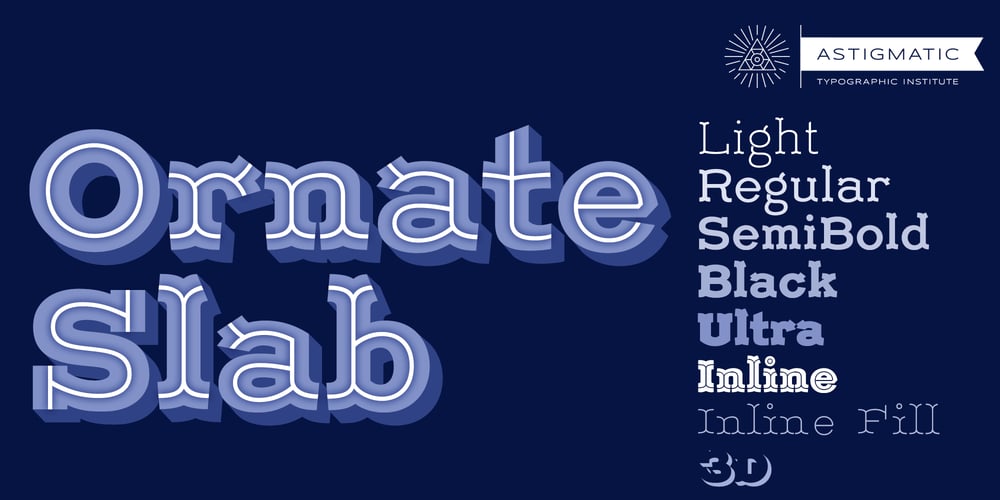
Ornate Slab AOE Font Family was designed by Brian J. Bonislawsky and published by Astigmatic. Ornate Slab AOE contains 8 styles and family package options. The Ornate Slab Family originated in an old penmanship book as a single style/weight and has been digitally revived with a range of weights and effect styles to give your design loads of play. Great for nautical, cultural, or historical appeal design and beyond. Complete with ordinals, true smallcaps, tabular numerals, smallcap numerals, unlimited fractions, and lots of panache. Layerable effects like 3D and Inline Fill work on both Inline and Ultra styles.